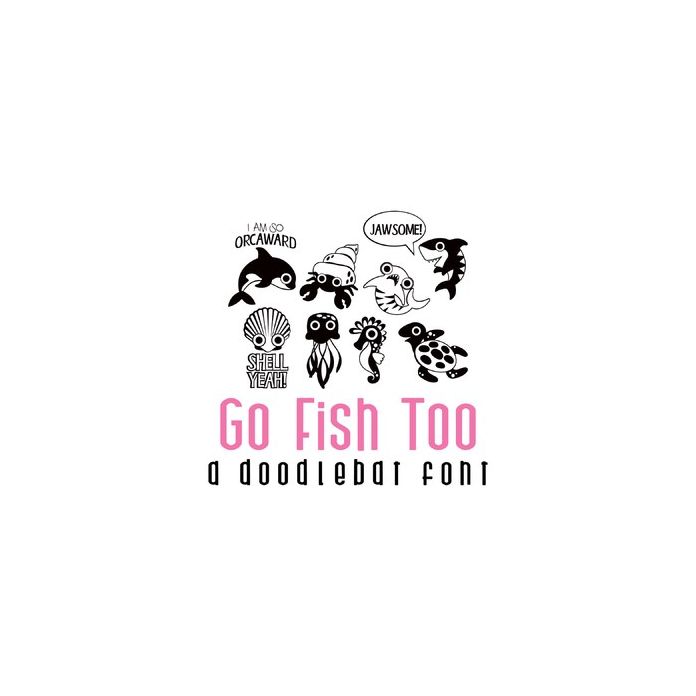
go fish too doodlebat font
This fun doodlebat features 26 different fun sea life and puns perfect for cards, crafts, gifts, decor, planner stickers, scrap book pages and more!